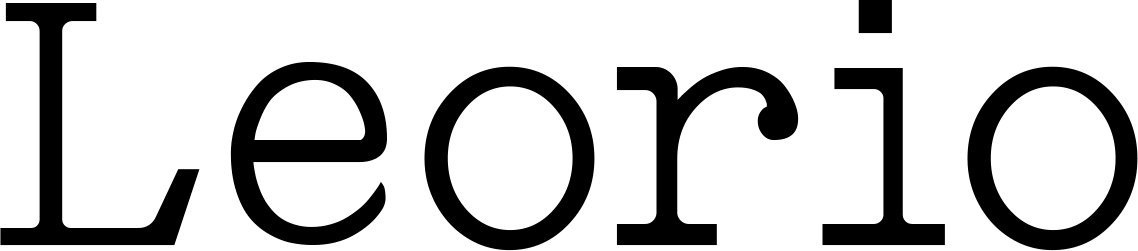
Leorio Font
Leorio font is one of the classic slab fonts you will get acquainted with the unique artwork. This font will give you the chance to have an incredibly luxurious design for your brands, such as watch and jewelry brands. D…
Leorio font is one of the classic slab fonts you will get acquainted with the unique artwork. This font will give you the chance to have an incredibly luxurious design for your brands, such as watch and jewelry brands. Due to the readability and cleanliness of this font, you can use it in the text of books and covers of novels.
If you are interested in designing spy movie posters, buckle up to use any of this font’s letters to promote your themes.